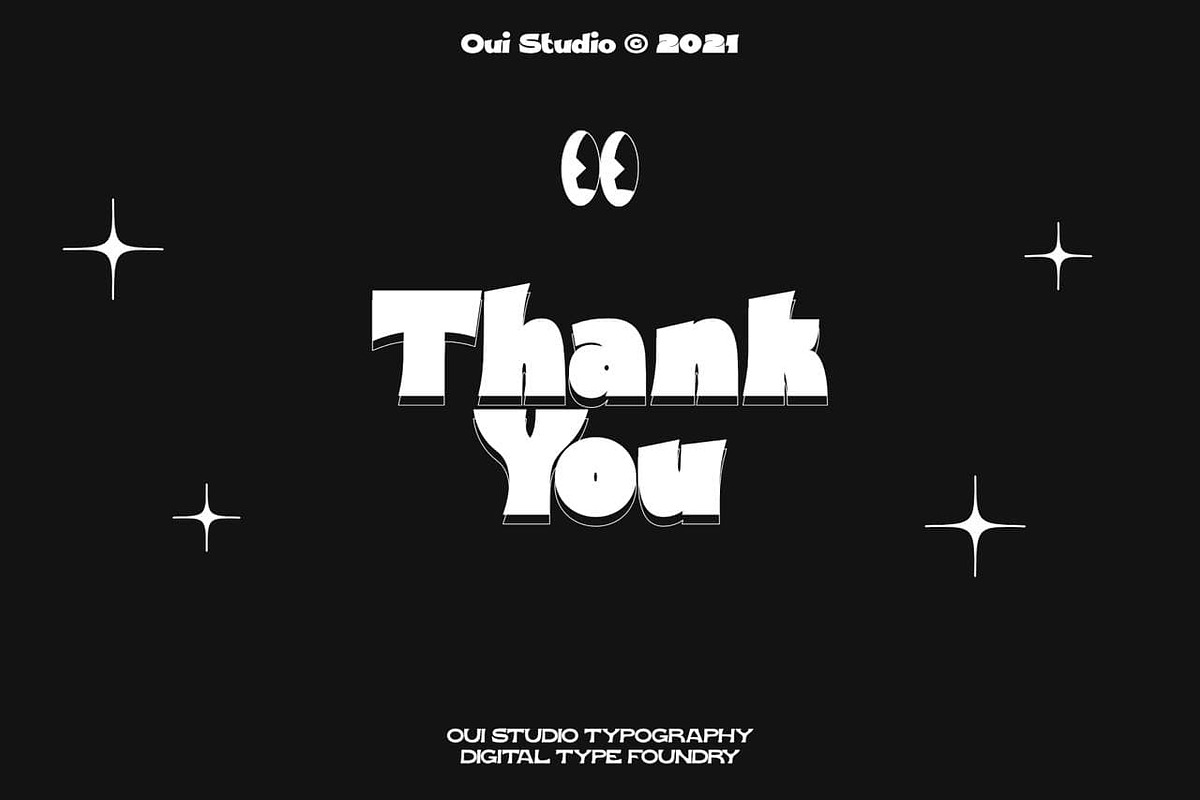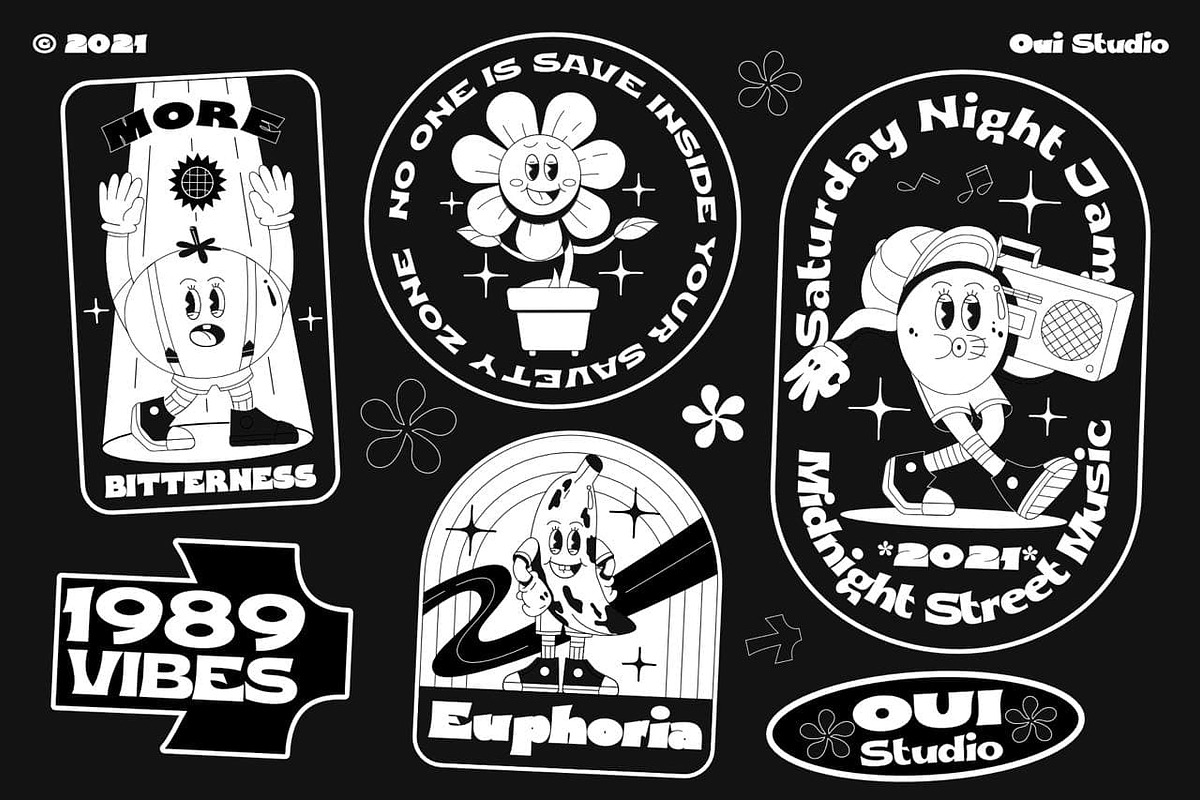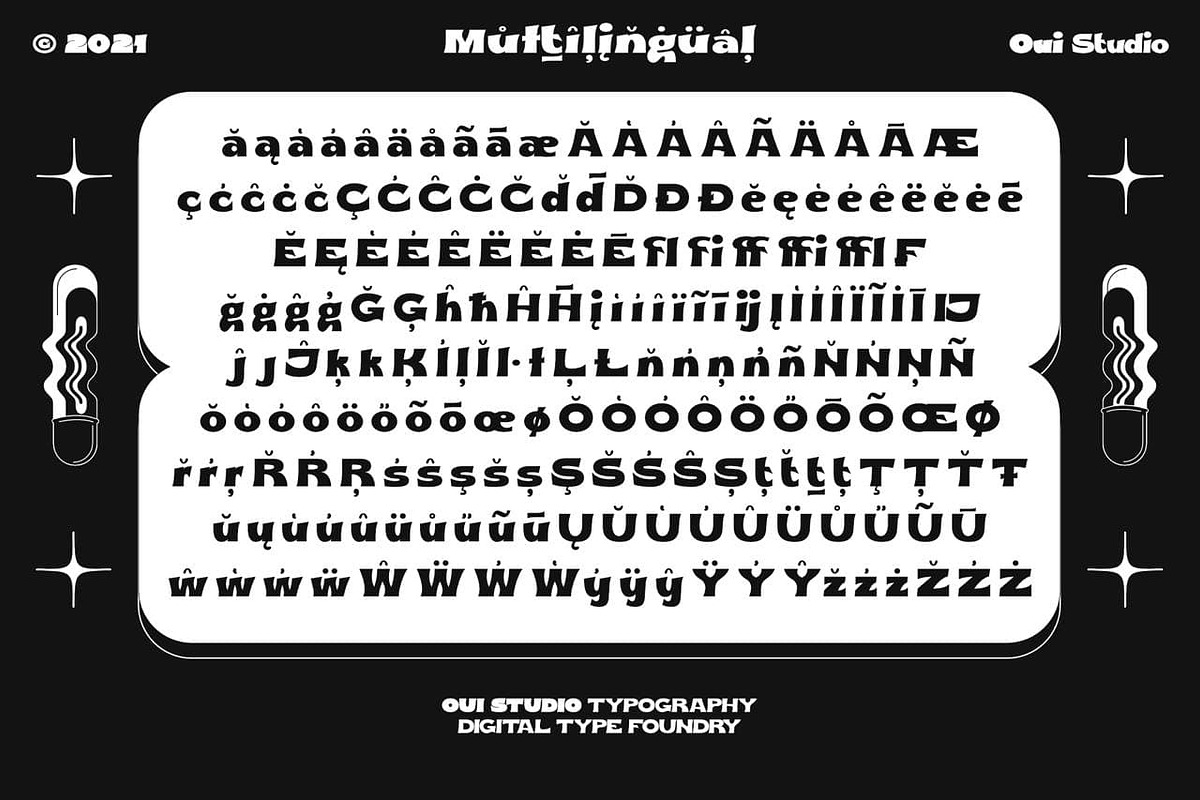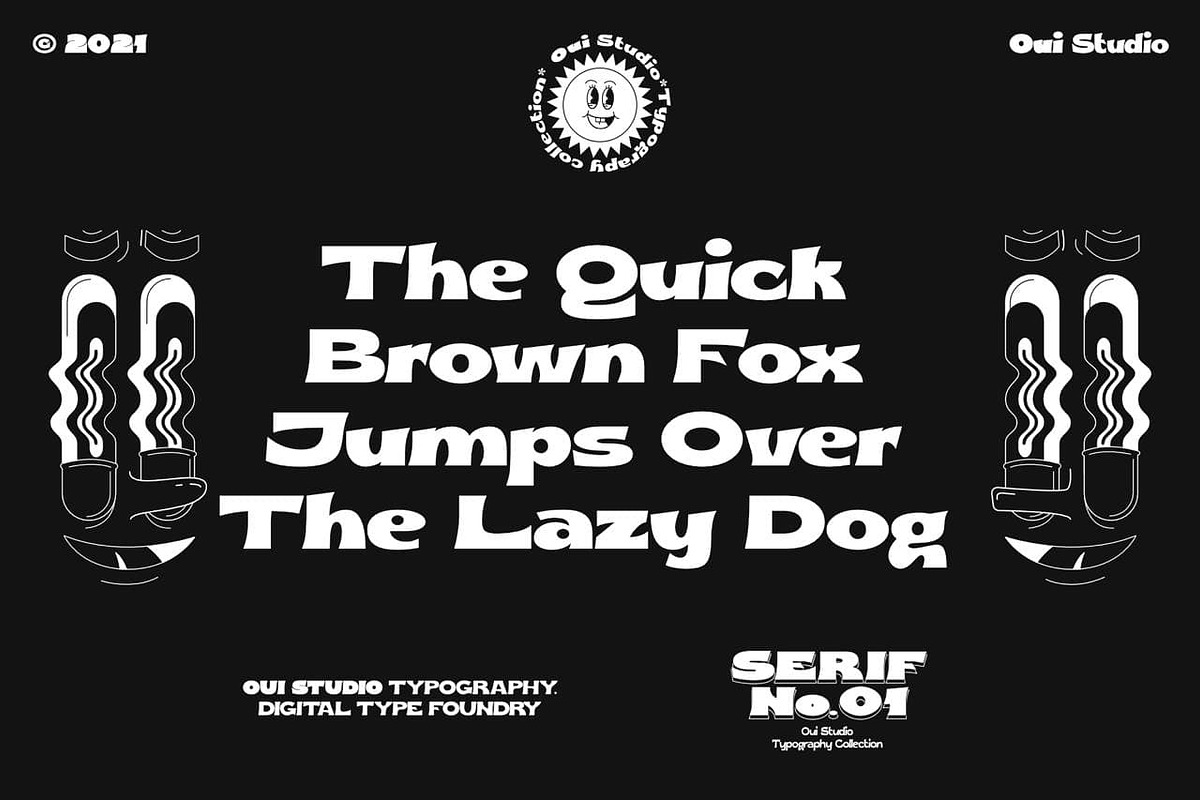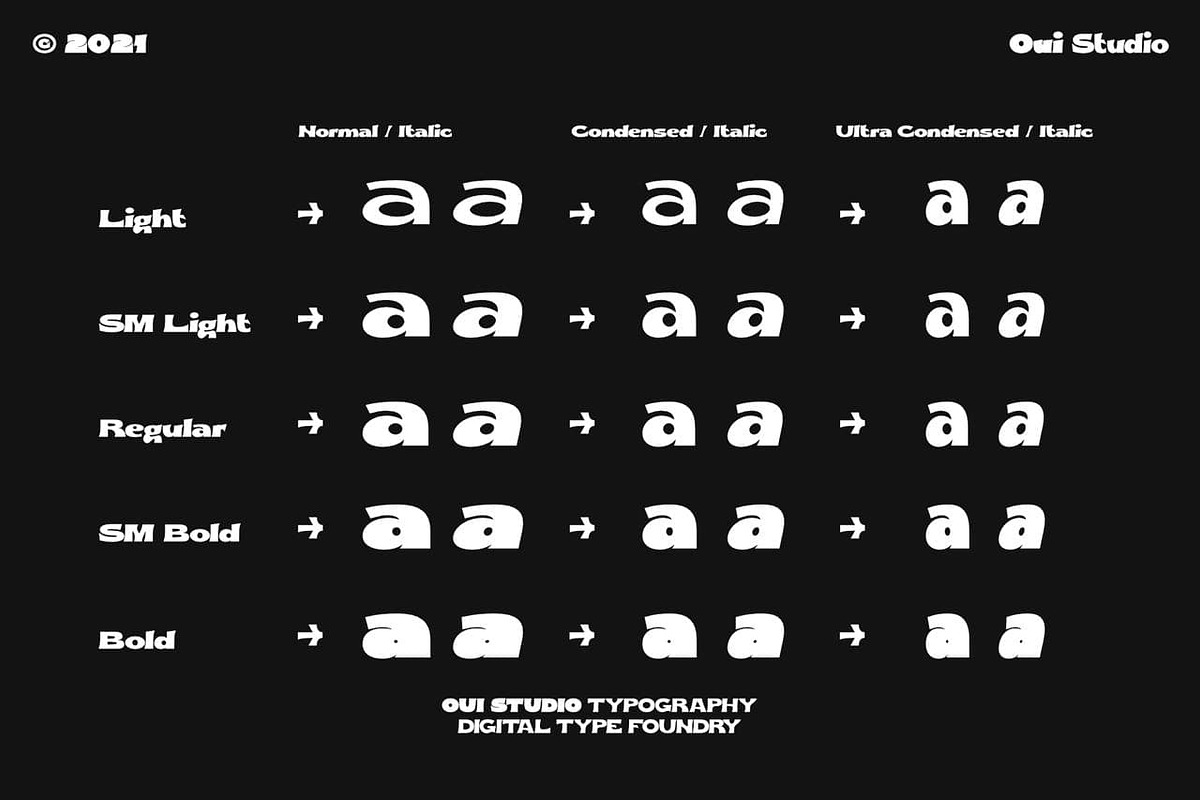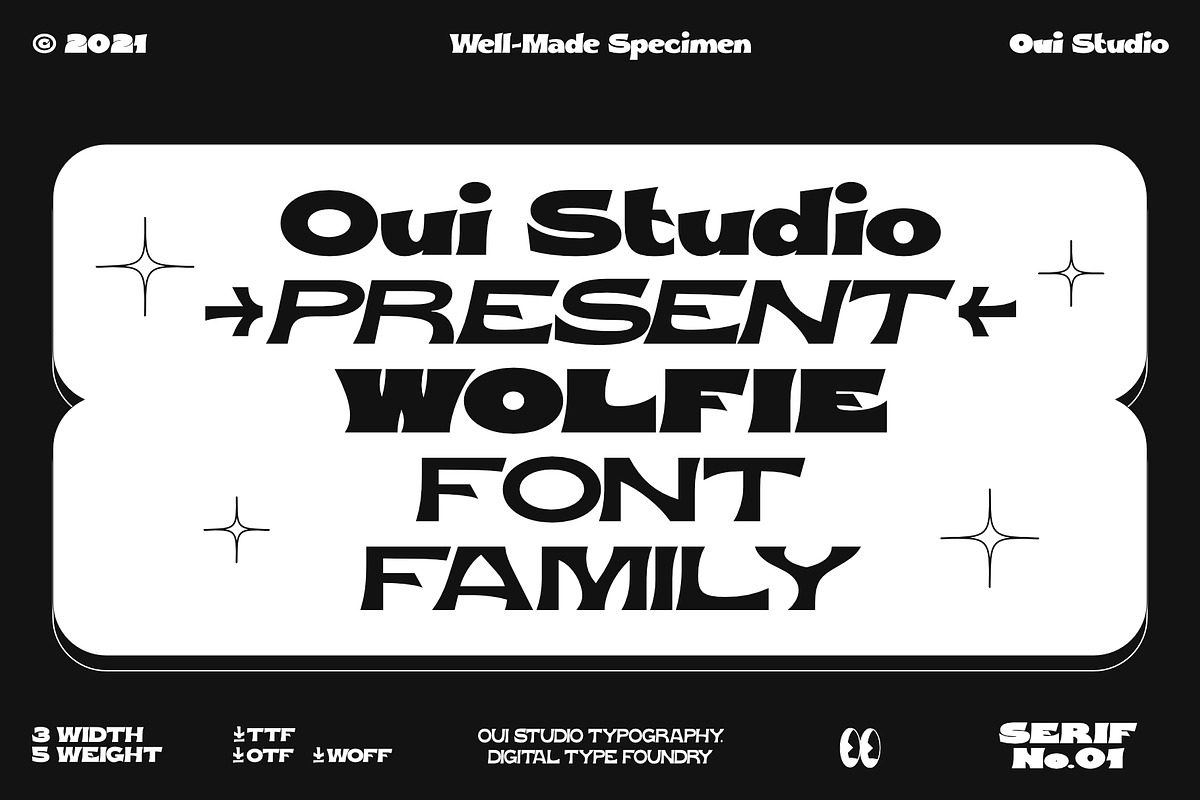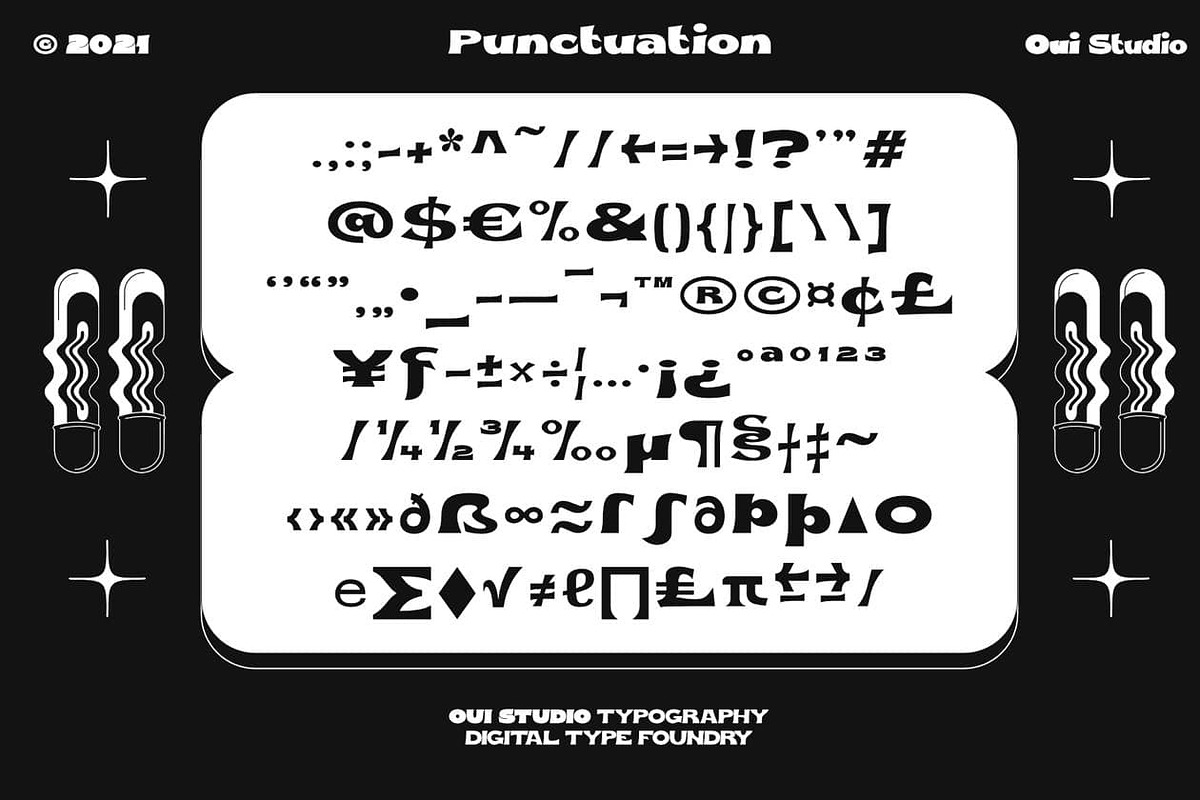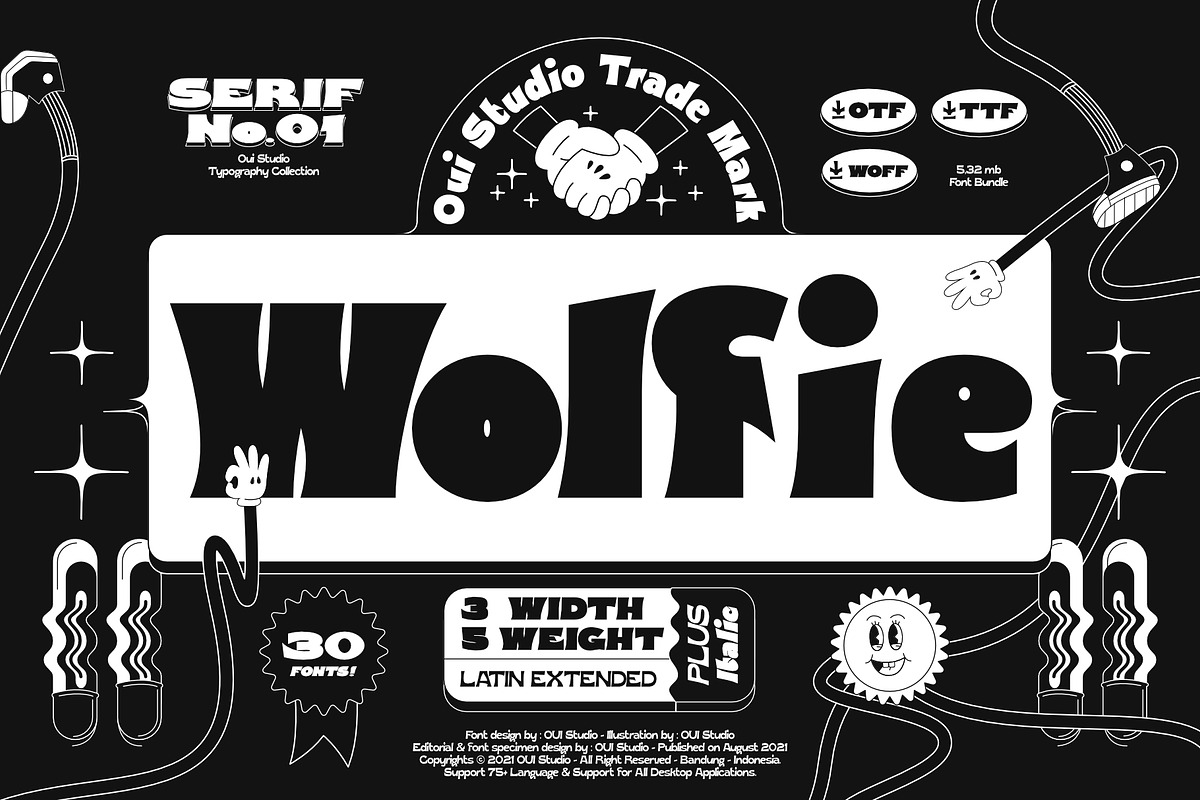
Wolfie Font Family
Hello friends! The 'Wolfie' font family is coming; a dynamic and new vintage feel. It's perfect for branding, logo, packaging, header, title, etc. Wolfie is great if you pair it with an 80s illustration, it will make the design even more dope.
Wolfie are available in 3 Widths (Condensed - Ultra Condensed - Normal) with matches 5 weights (Light - Semi Light - Regular - SemiBold - Bold) total 30 fonts and support for 75+ language.